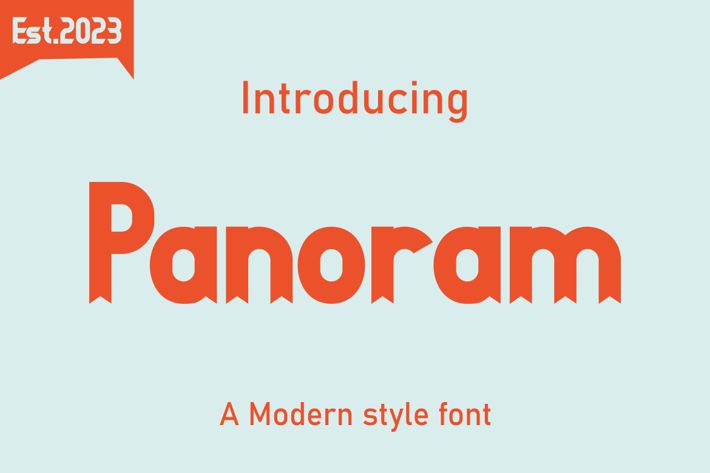
Panarom Font
Introducing our new product Panarom Font - Modern Font
Panarom Font - Modern Font is a bold and authentic display font. The font is suitable for any branding project like logo, t-shirt printing, and many more. outstanding in a wide range of contexts.